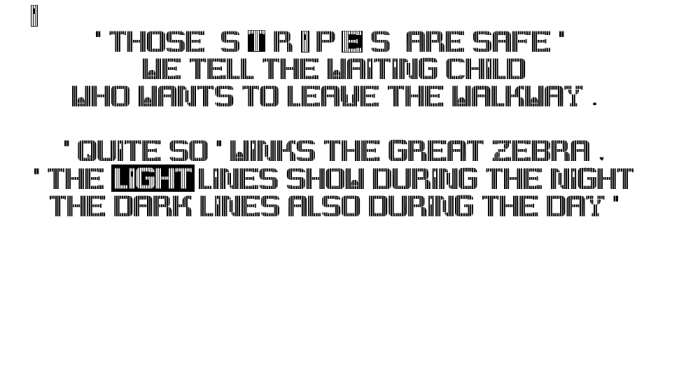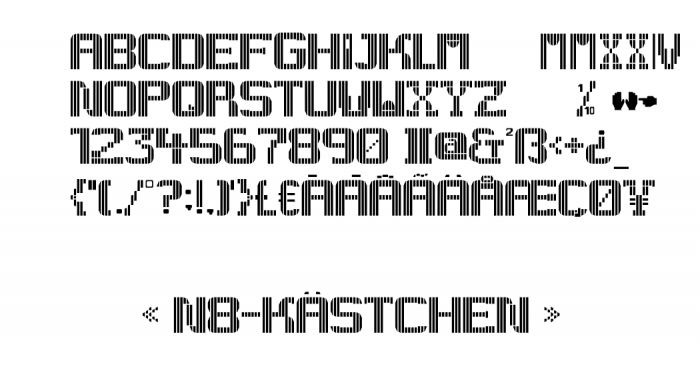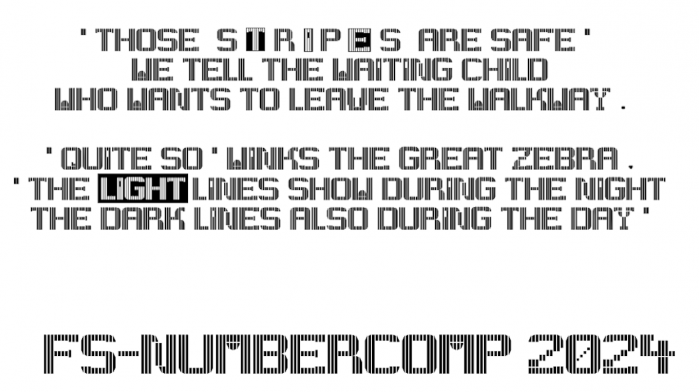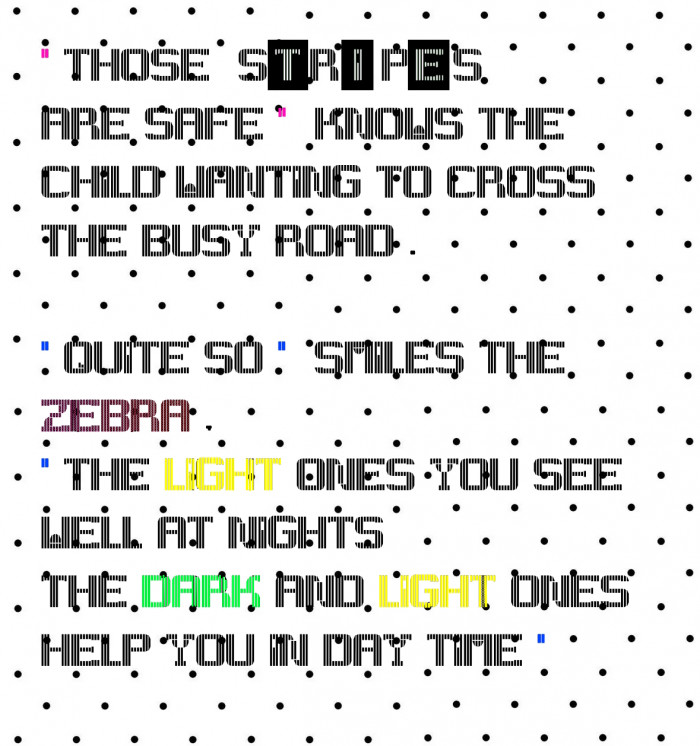
• Sieht brauchbar aus. Alternative 3 auf "§" , alternative 4 auf "µ". Overview Sampler shows some of the basic glyphs and just one or two (but not all of the) more special 'number glyphs' I've  added. The Display Sampler shows the visual impression of the font in a text situation.
Why is an A in the same glyph as B?